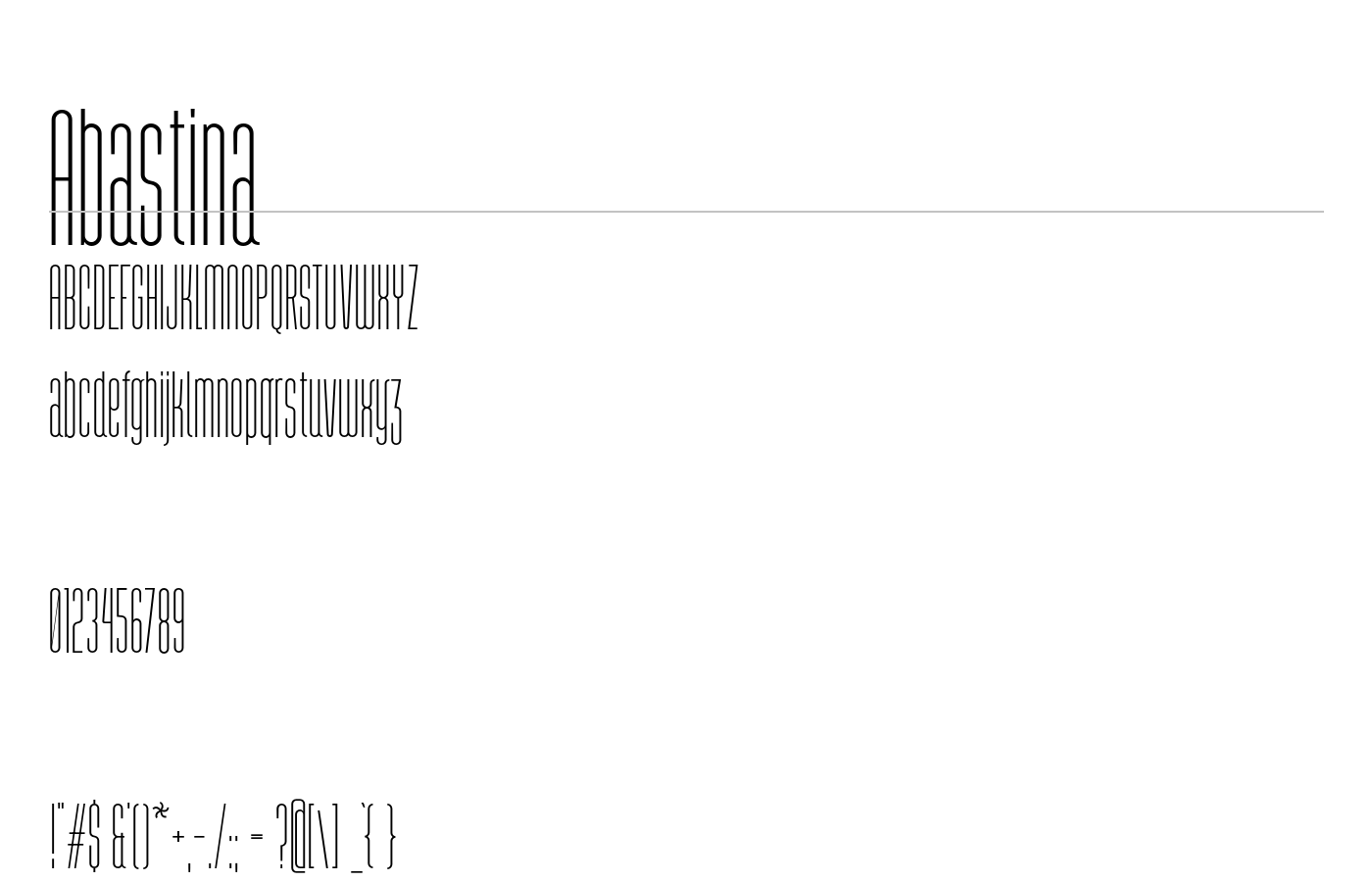
Abastina is a slender, condensed sans serif font characterized by its tall, narrow letterforms and minimal stroke contrast, giving it a sleek and modern appearance. Its clean lines and subtle geometric shapes make it ideal for elegant headlines, fashion branding, and stylish editorial projects that require a refined yet contemporary touch. This font works best in display settings where its unique tall proportions can stand out and convey sophistication.
Abastina Font
About Abastina Font
| Designer | Matias Castro & Sebastián Asegurado |